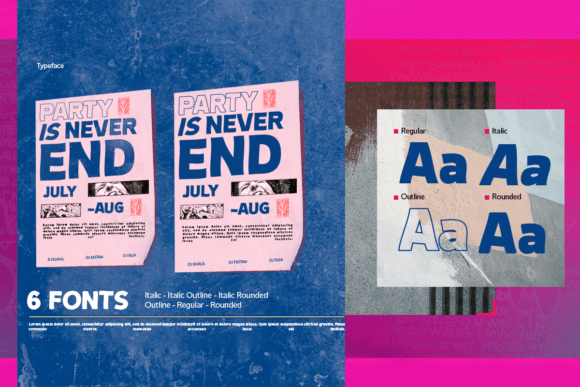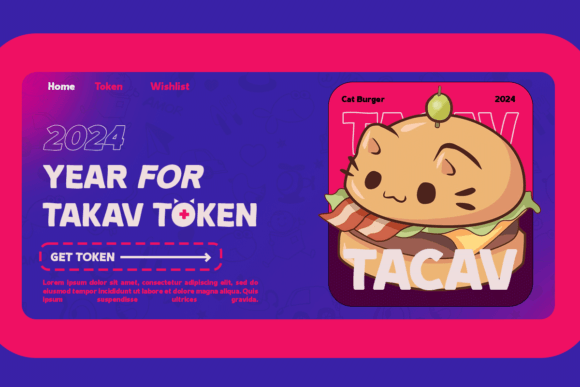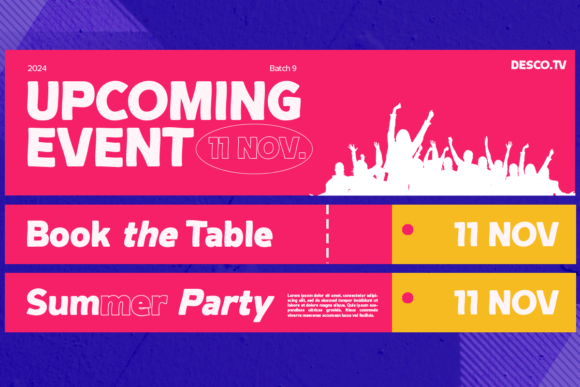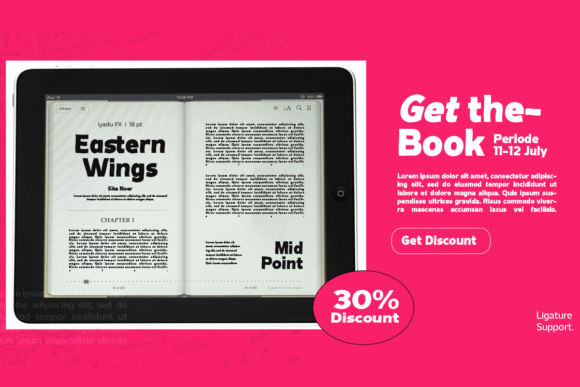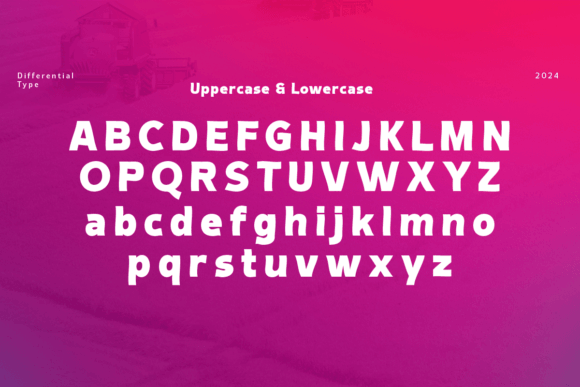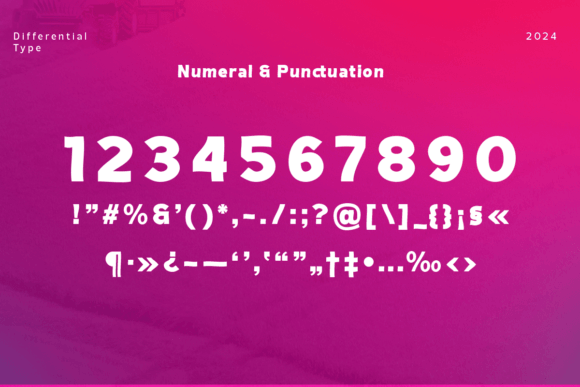
The Spark of Creativity: Unleashing Iyadufx Font
Have you ever sat in front of a blank page, staring at a blank canvas, or staring at a blank screen, waiting for that spark of creativity to strike? The moment when everything comes together and your design takes shape? That’s the moment when the right font can make all the difference. Introducing Iyadufx Font, a bold and dynamic sans serif display font that brings energy and personality to your creative works.
Iyadufx Font is more than just a font – it’s a versatile tool designed to help you express yourself and make your designs stand out. With six distinct variations, including regular, rounded, outline, and their italic counterparts, you have the freedom to experiment and find the perfect fit for your artistic vision. Whether you’re a seasoned designer or just starting out, Iyadufx Font is an invaluable asset that will help you take your designs to the next level.
- Unique Characteristics: Iyadufx Font features a unique, modern design with a blend of geometric and organic elements, making it perfect for digital and print applications
Iyadufx Font Review
Overall, I found the Iyadufx Font to be an interesting and unique addition to any design project. Here’s what I think works well: ✨
- Unique letterforms and flourishes: The Iyadufx Font offers a refreshing twist on traditional typography with its quirky and playful letterforms.
- High-quality rendering: The font is well-rendered and smooth, making it perfect for both digital and print use.
- Good legibility: Despite its unconventional design, the font is still easy to read and understand.
However, I also encountered some limitations: ⚠️
- Limited character set: The font’s character set is limited, which may be a problem for users who need to use it for extended periods of time or in a variety of contexts.
- Not suitable for body text: Due to its unique design and limited legibility, the Iyadufx Font may not be the best choice for body text or large blocks of text.
- May require adjustments: Depending on the design project, the font may require some adjustments or tweaking to fit the desired aesthetic.
Overall, the Iyadufx Font is a great choice for designers looking for a unique and eye-catching font to add some personality to their projects. Just be mindful of its limitations and use it wisely.
The Iyadufx font is commonly used for creative projects that require a unique and eye-catching font. Some common use cases include:
– Headlines and titles
– Print materials such as business cards and brochures